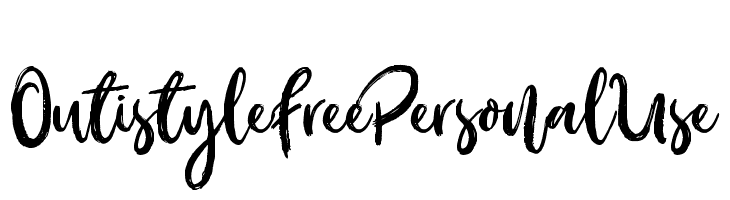
A bold, elegant script font with flowing, interconnected letters.
A bold, expressive brush-style font with a hand-painted appearance.
A bold, brush script font with a dynamic and artistic style.
A bold, expressive handwritten font with a brush-like texture.